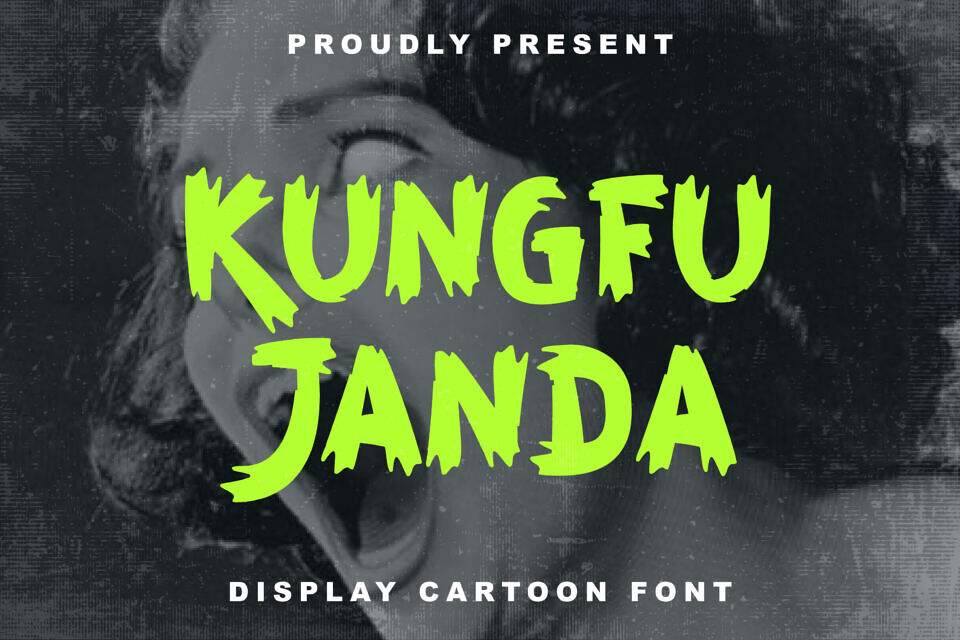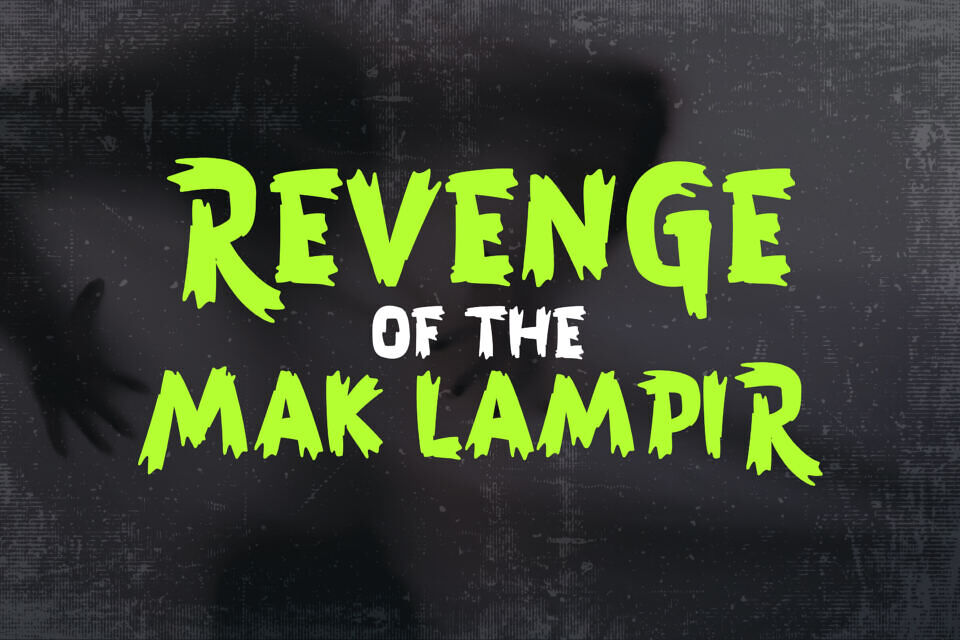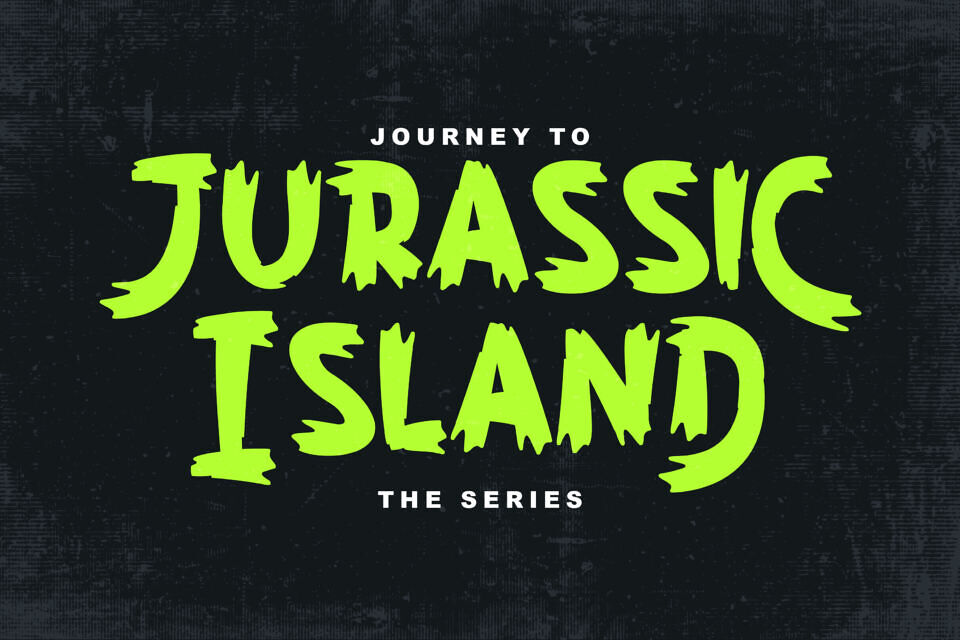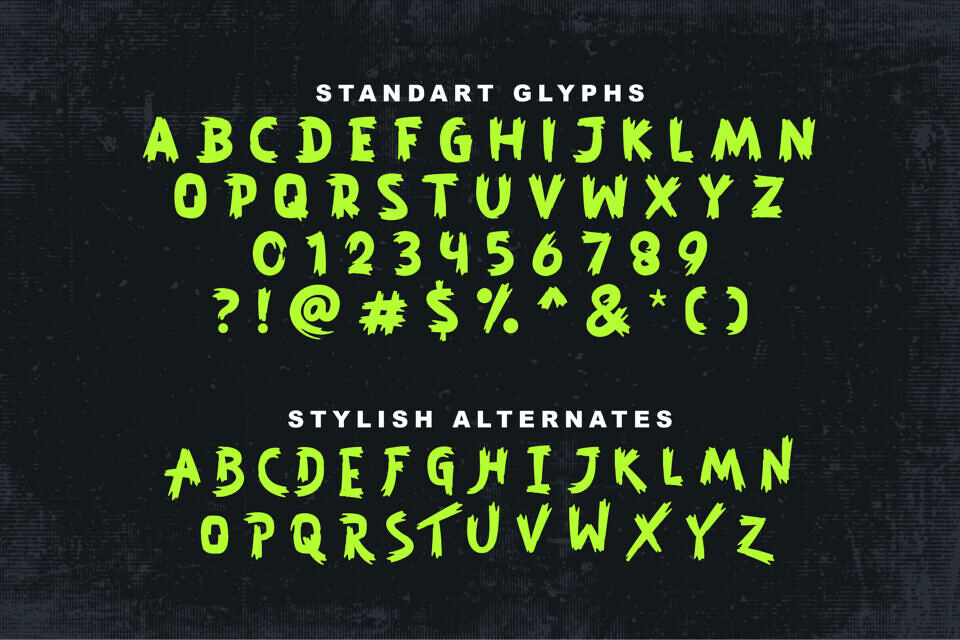
Kungfu Janda Font
Kungfu Janda is a playful, horror-themed cartoon font. It’s perfect for designs with a youthful twist, kids’ themes, and apparel brands. The font includes standard characters and stylish variations, making it versatile for creative projects.
Designed by: Memet Saputra